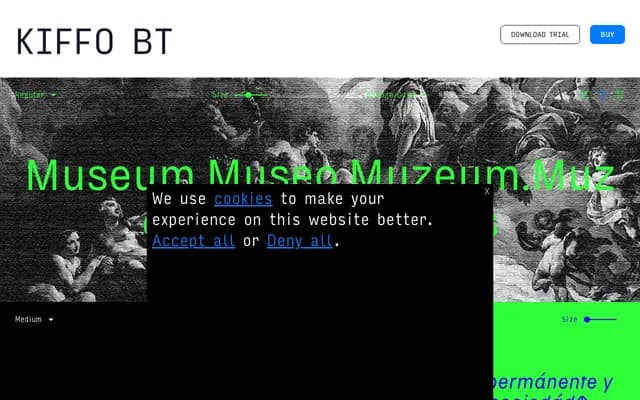
Kiffo BT specimen from Bastarda
A seven-weight grotesque sans from Bastarda with broad Latin Extended and Cyrillic coverage, aimed at institutional and editorial use.
Kiffo BT spans seven weights from Thin to Bold, each with a matching italic, giving a total of fourteen styles. The specimen leans heavily on museum, gallery and cultural institution contexts, suggesting a design sensibility suited to arts and civic communication. Character coverage extends across Latin Extended and Cyrillic, with the full set including diacritics for Central and Eastern European languages.
The specimen text labels it a 'Grotesk' and the letterforms shown are consistent with a contemporary grotesque sans-serif with broad weight range and upright-italic structure.